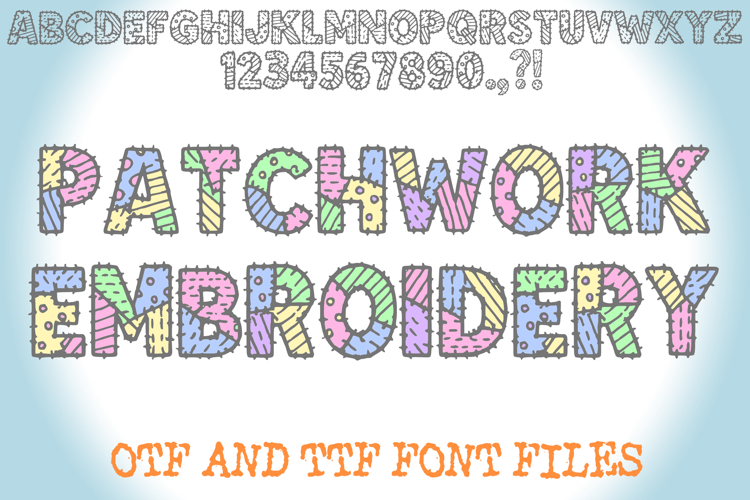
The Embroidery Stitch Font brings the cozy, tactile feel of hand-stitched embroidery to your digital projects. Each letter is made up of textured thread-style lines that mimic real stitches, adding crafty detail and playful charm. Perfect for sewing-themed graphics, craft blogs, children’s books, DIY branding, or handmade product packaging, this display font delivers warmth and personality with every character.
Patchwork Embroidery Alphabet Lettering Sewing ABC Text Font OTF
A unique stitch style font where you can create your own words and colour them to your vision!